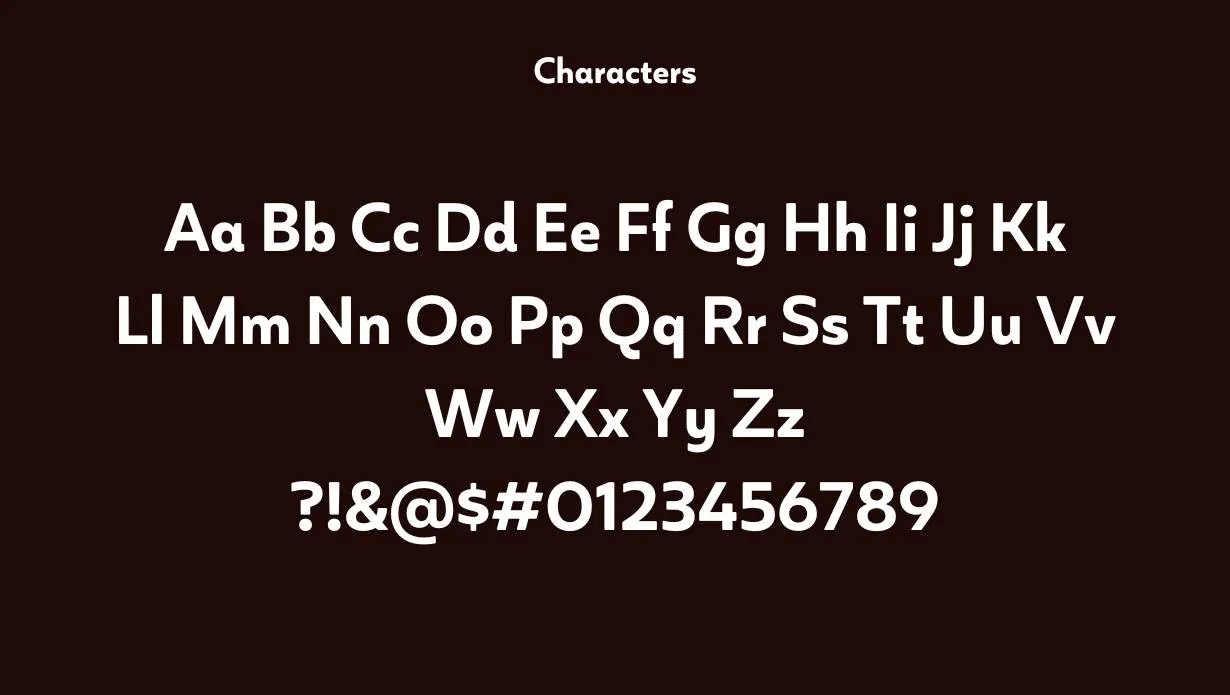
Blauth is a modern and versatile sans-serif font that combines simplicity with a touch of sophistication. Its clean lines and balanced proportions make it suitable for various design applications.
Blauth is often used in digital interfaces, branding, and print materials where a contemporary and minimalist aesthetic is desired. The font’s purpose is to provide a clear and straightforward typeface that communicates information effectively while adding a modern flair to text.
View of Blauth Font Family
| Name | Blauth Font |
| Designer | Latinotype |
| Style | Sans-serif |